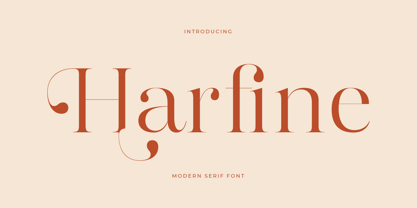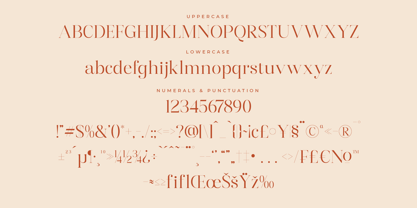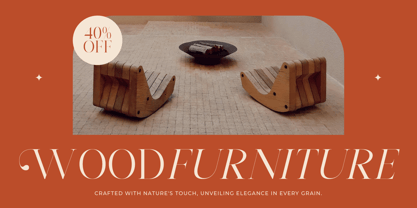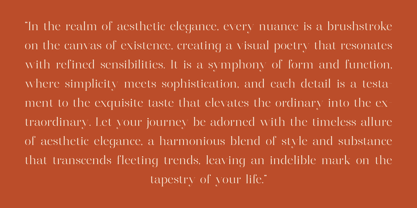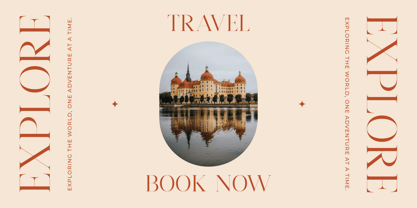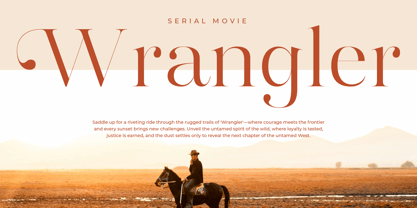
Harfine
by Letterena Studios
The Harfine Font Family was designed by Heru Utama Putra and published by Letterena Studios. Harfine contains 2 styles and family package options. More about this family
Harfine is a modern and elegant serif font designed for sophistication and clarity. With refined letterforms and balanced spacing, it embodies timeless grace suitable for editorial projects, branding, and luxury packaging. Harfine's versatility and legibility make it a perfect choice for conveying elegance and professionalism in various design contexts.